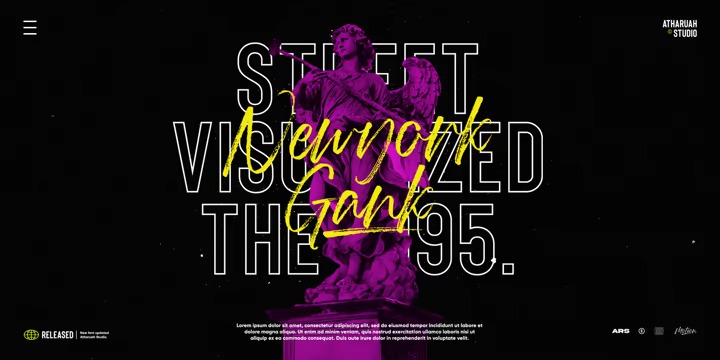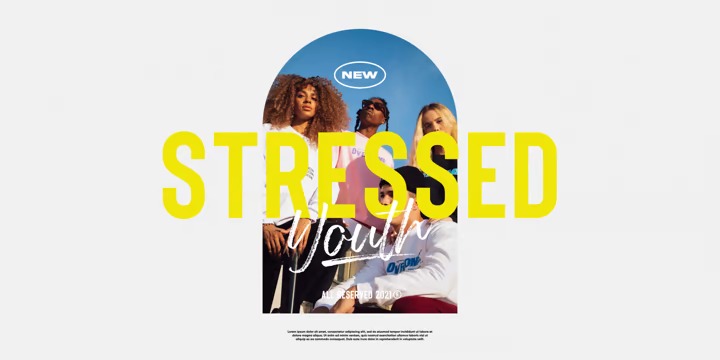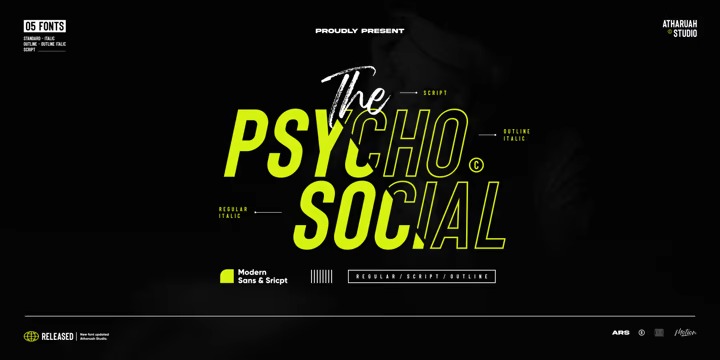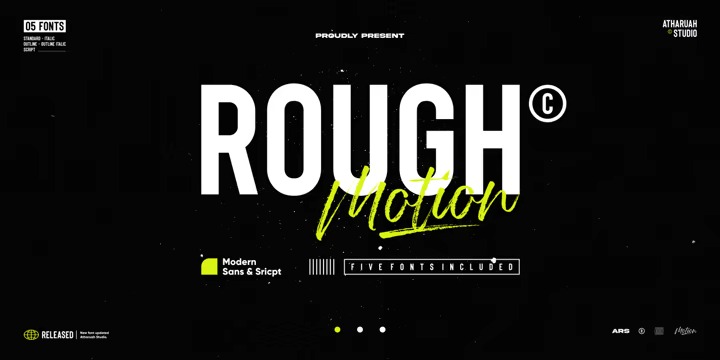
Rough Motion Font
Rough Motion Font Duo
This is a elegant pair of script and sans serif typeface. Made from font designer named Atharuah Studios. Make it a balanced composition in a sans serif font and a brush pen in a script font to show the realistic elements of the font. This is a font that is suitable for you to use in all your creative needs. Such as branding, logos, posters, web design, music artwork, etc.